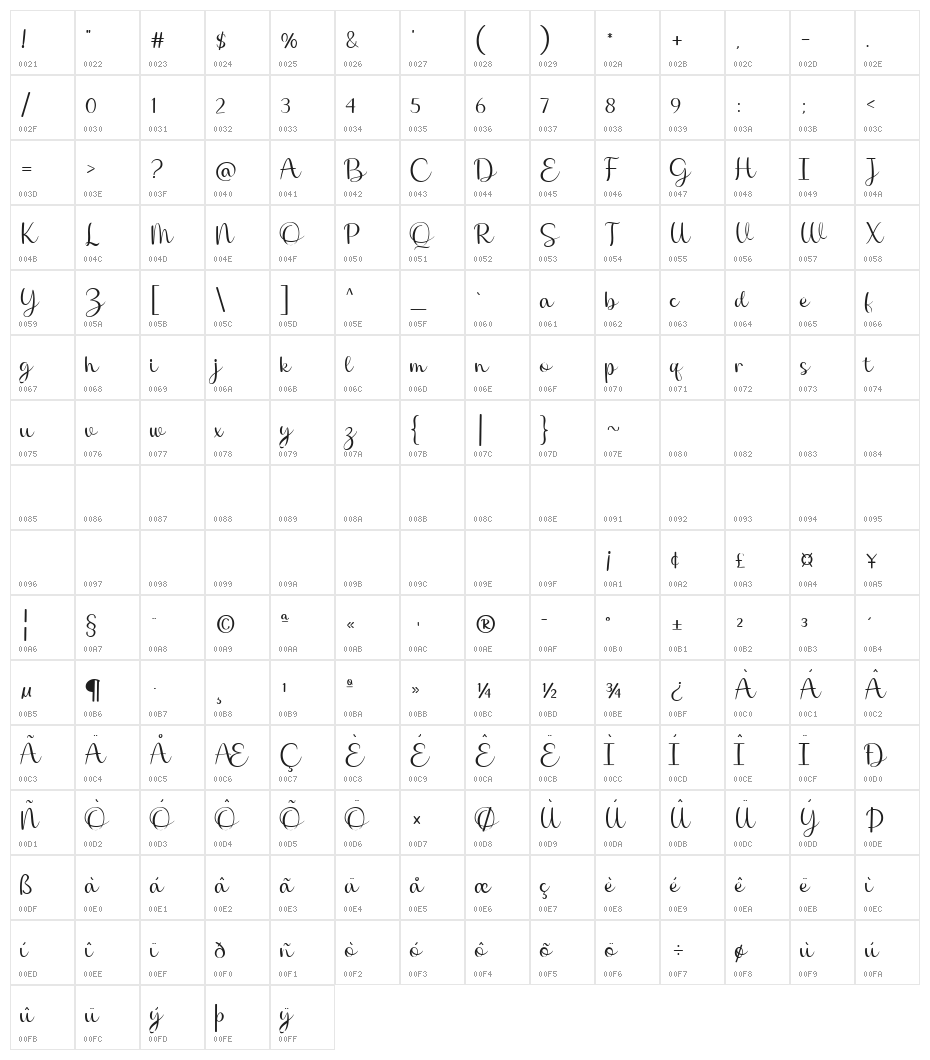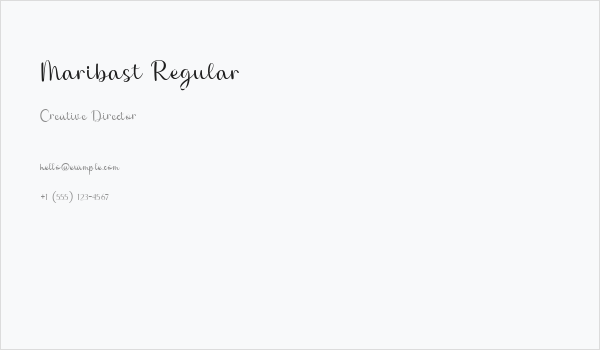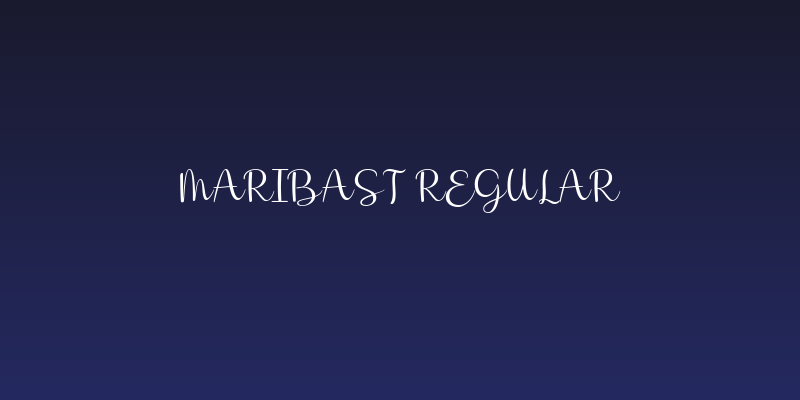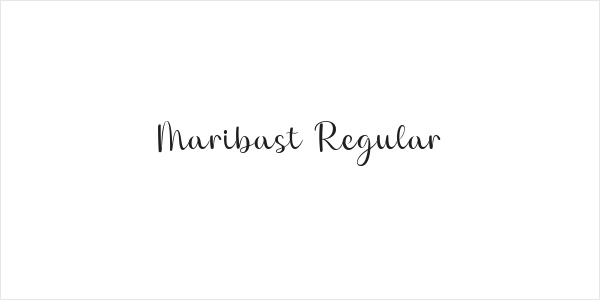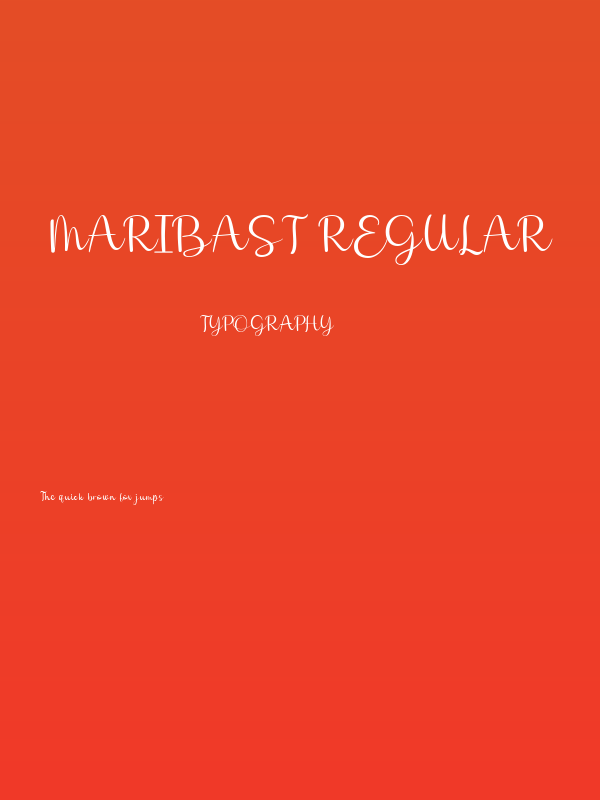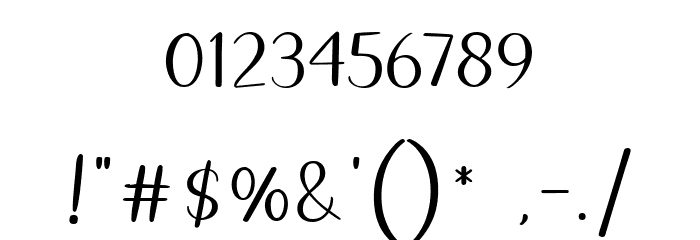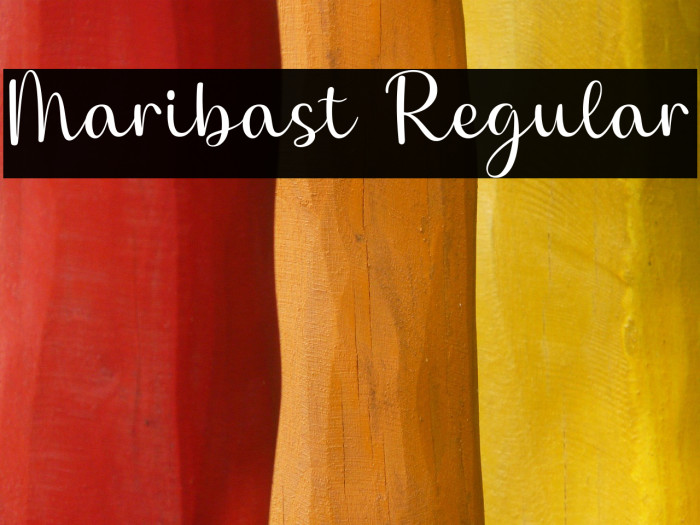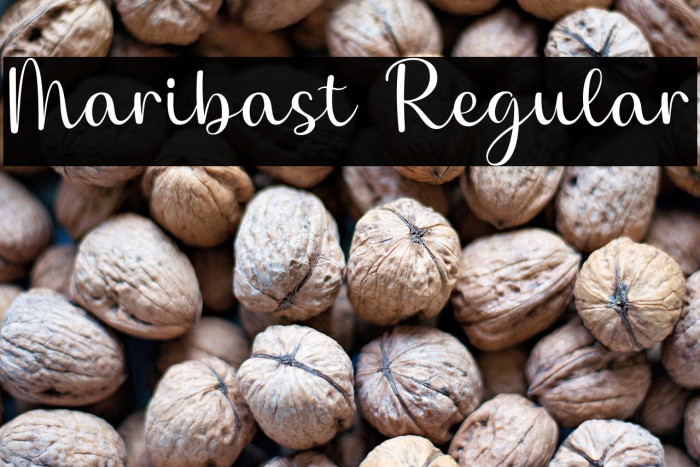
Maribast Regular Font
Maribast Regular Description
This font features a flowing, cursive style with elegant loops and swashes, giving it a sophisticated and artistic appearance. The uppercase letters are tall and graceful, while the lowercase letters maintain a consistent flow, enhancing readability. The numerals are distinct and match the overall style, making them suitable for decorative purposes. Special characters are well-integrated, maintaining the font's cohesive look. This font is ideal for projects that require a touch of elegance and creativity.
| Overall Style | Elegant and Artistic |